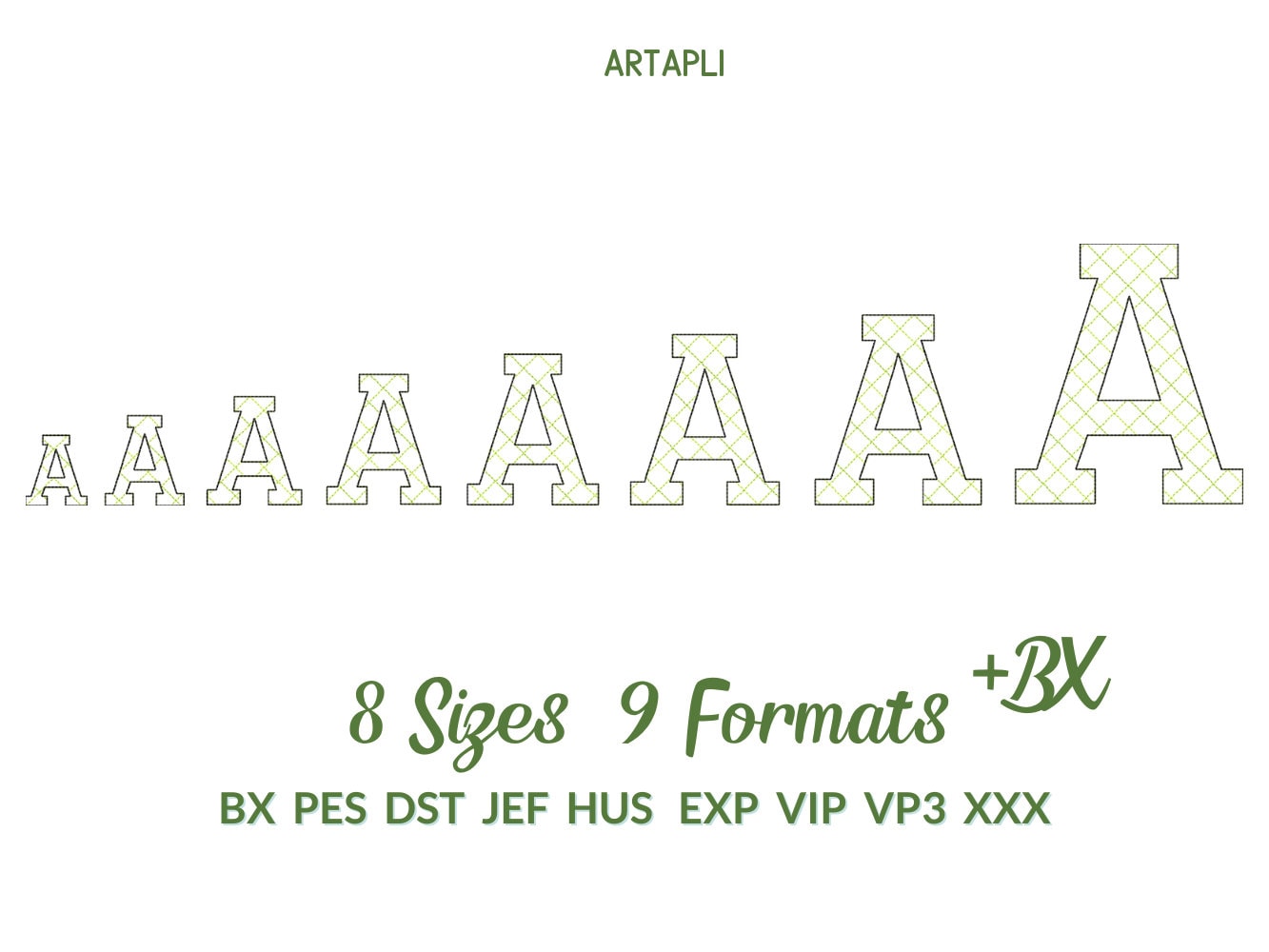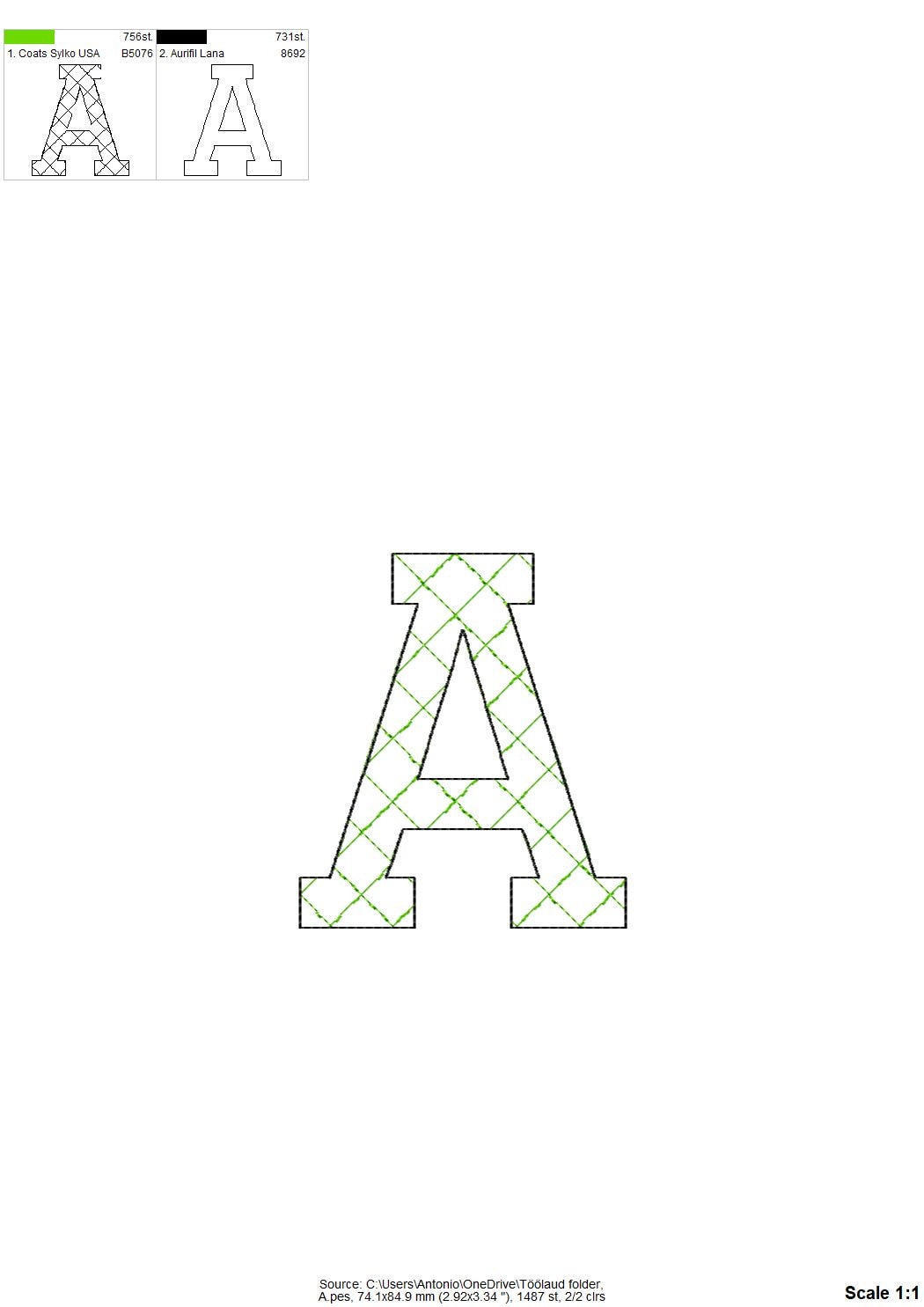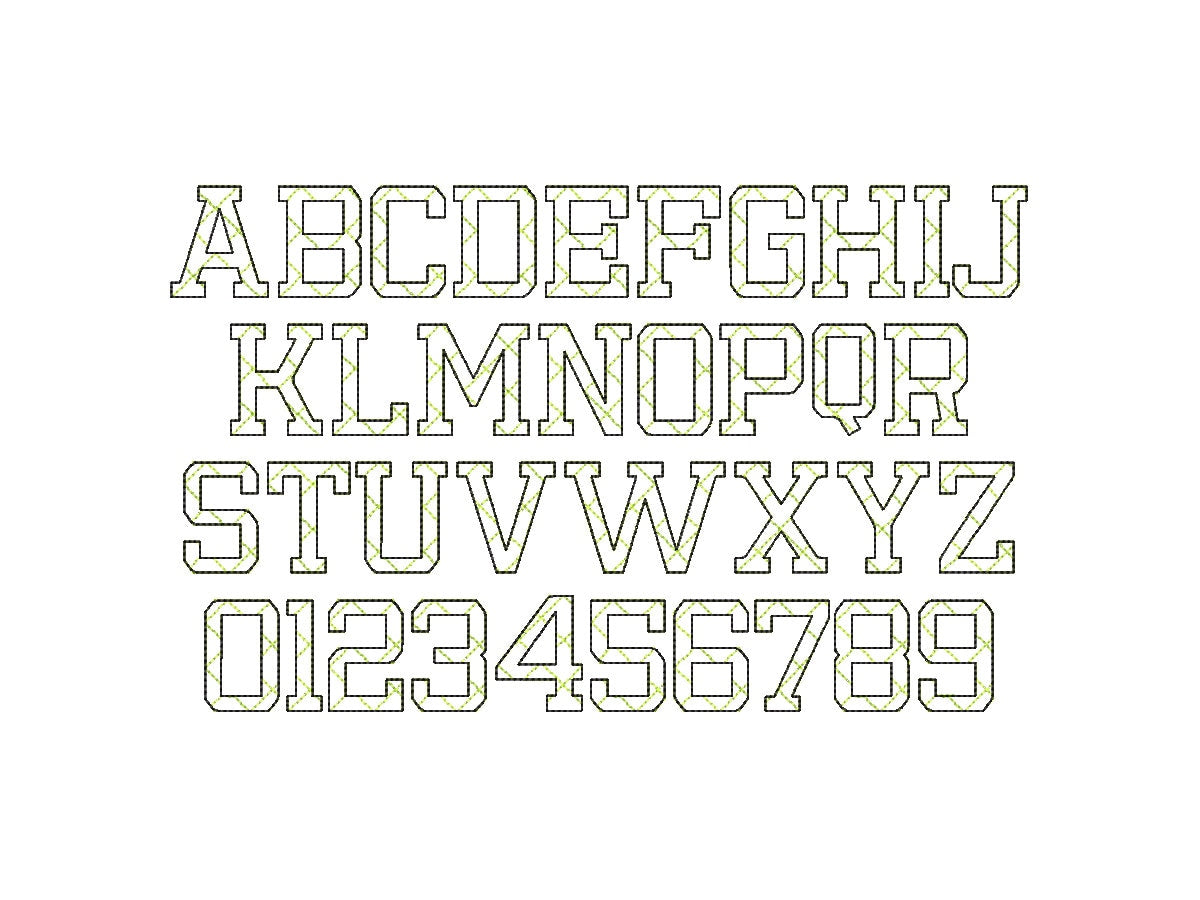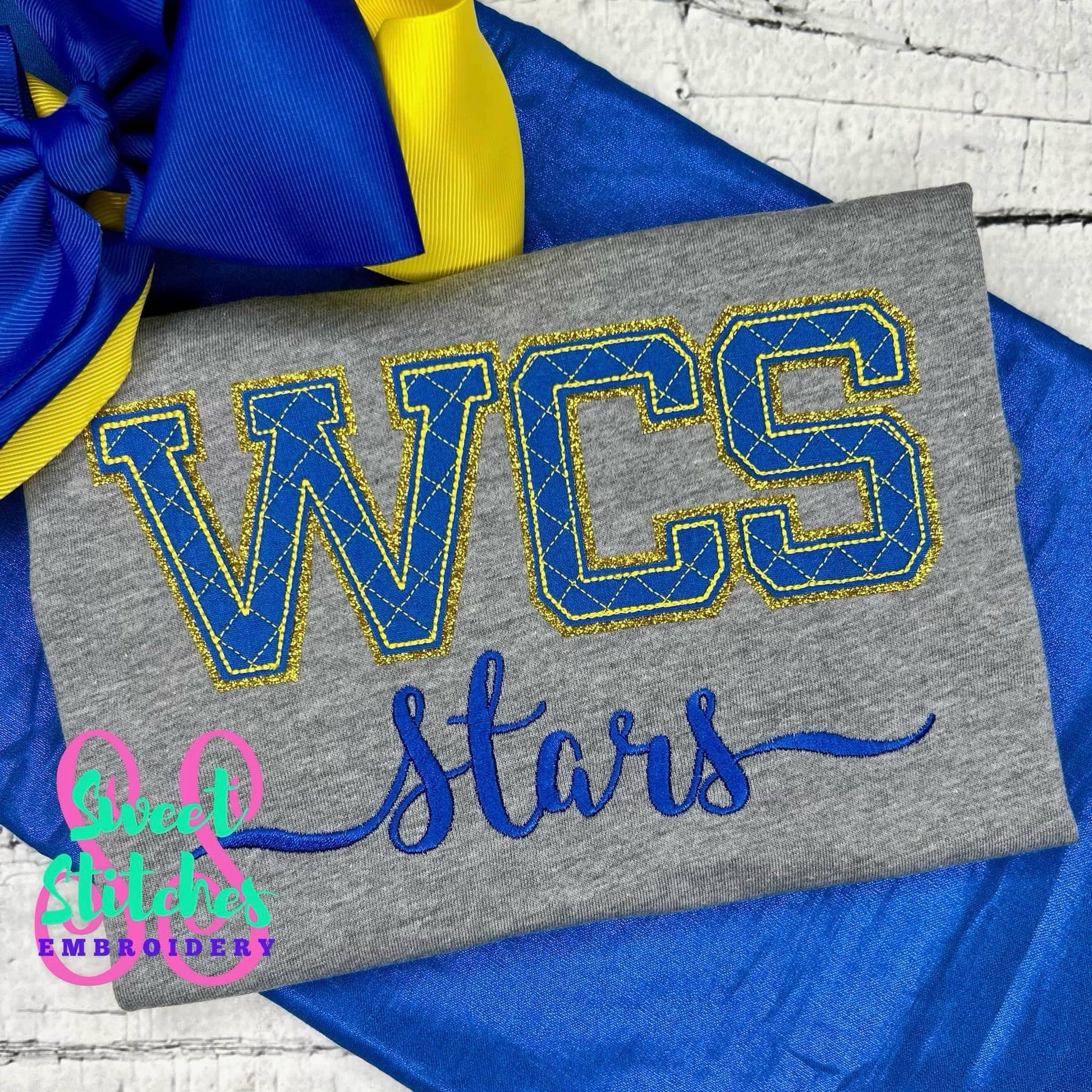
Light Stitch Diamond Glitter Font
Or click to open the linkA light stitch font with a diamond quilt pattern, great with glitter vinyl or on its own. Fun for boys' names, shirts, bags and monograms.
Uppercase letters A to Z and numbers 0 to 9 in eight sizes: 1.4, 1.8, 2.1, 2.5, 3, 3.3, 3.7 and 5.1 inches. The quilted lines are part of the stitching and the fabric shows through.
- Light stitch diamond quilt font
- Uppercase A-Z, numbers 0-9
- 8 sizes, 1.4 to 5.1 in